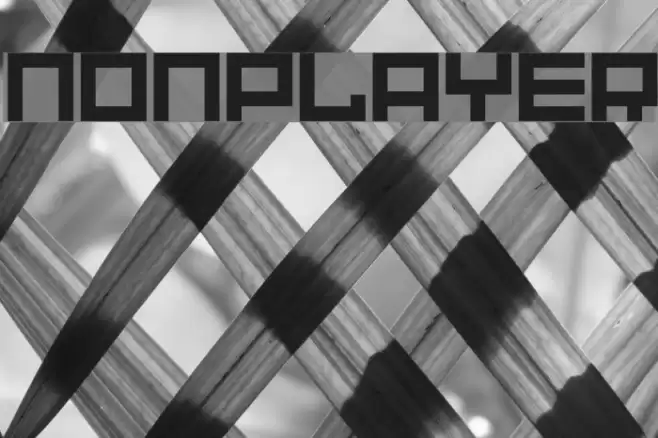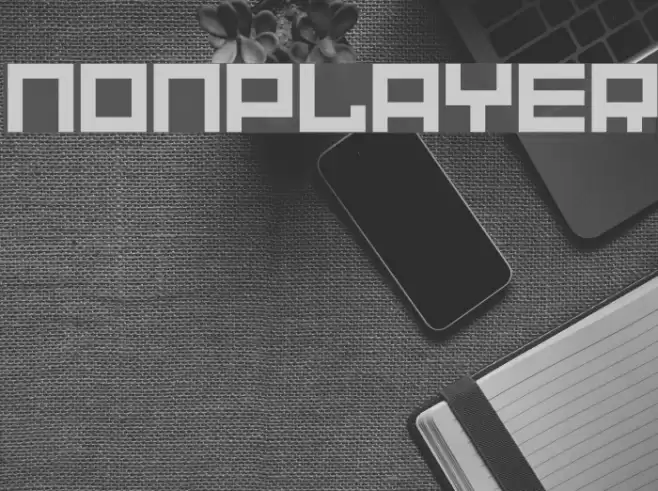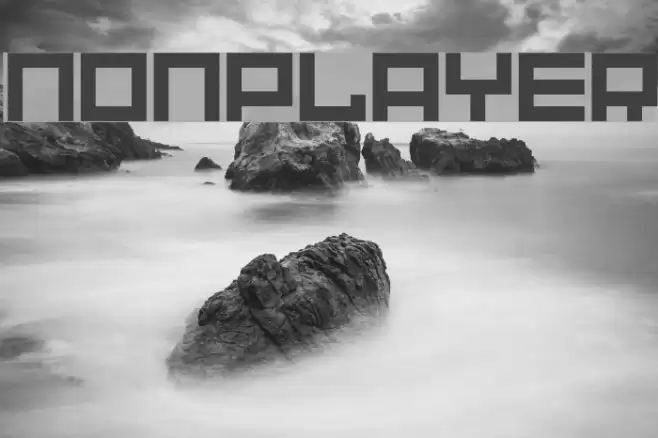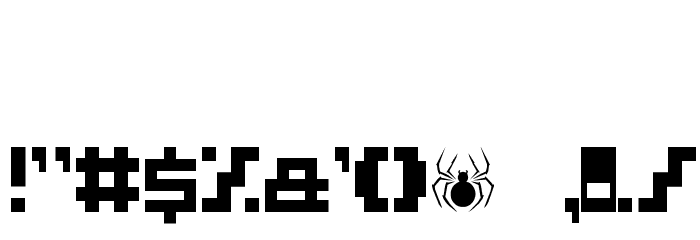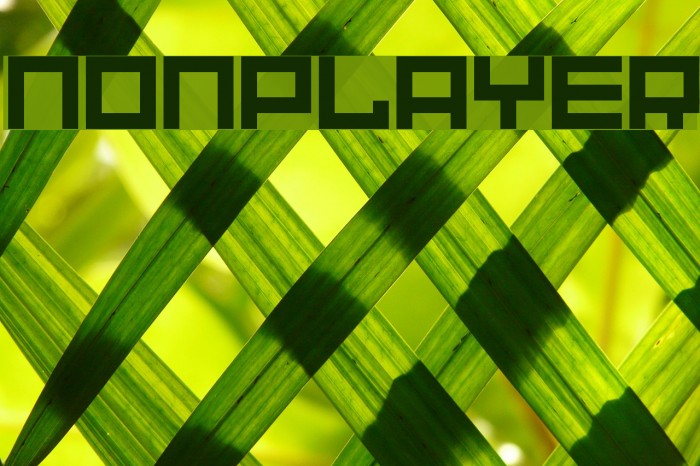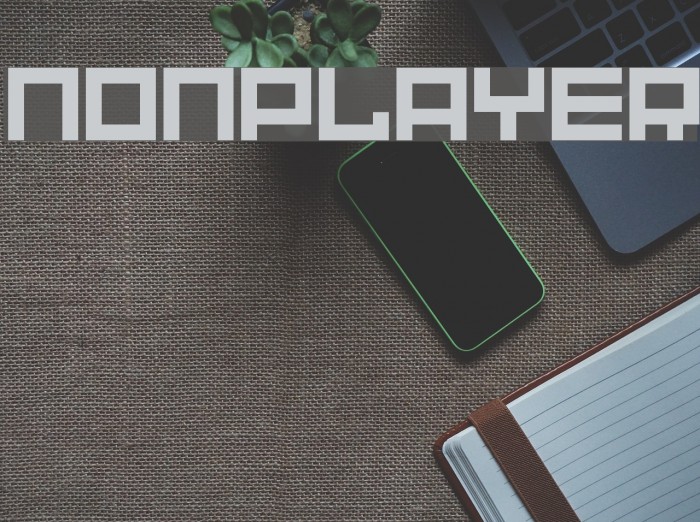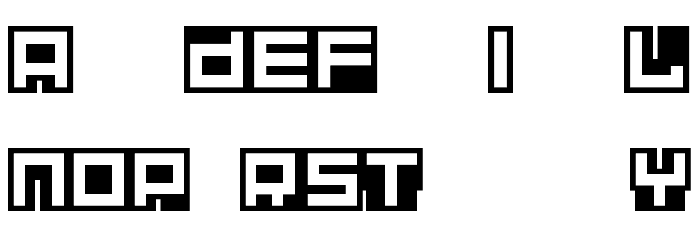
NONPLAYER Font
NONPLAYER Description
This font features a bold, geometric design with a distinctly digital and futuristic aesthetic. The characters are constructed with sharp, angular lines and a blocky structure, giving it a strong, impactful presence. The uppercase letters are particularly striking, with a uniform height and width that contribute to a cohesive look. The lowercase letters maintain the same geometric style, ensuring consistency throughout the typeface. The numbers and special characters are designed to match the overall theme, with unique shapes that add to the font's distinctive appearance. This font is ideal for projects that require a modern, tech-inspired look.
A bold, geometric font with a digital, futuristic style from Comic fonts.
- Proposed Projects: Ideal for video game titles, tech branding, digital media, and futuristic posters.